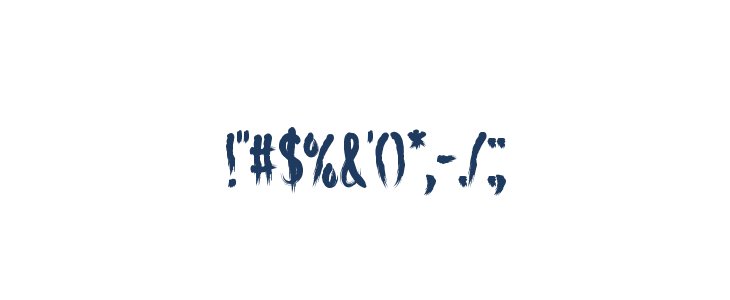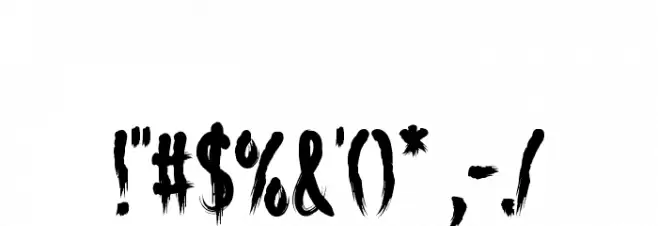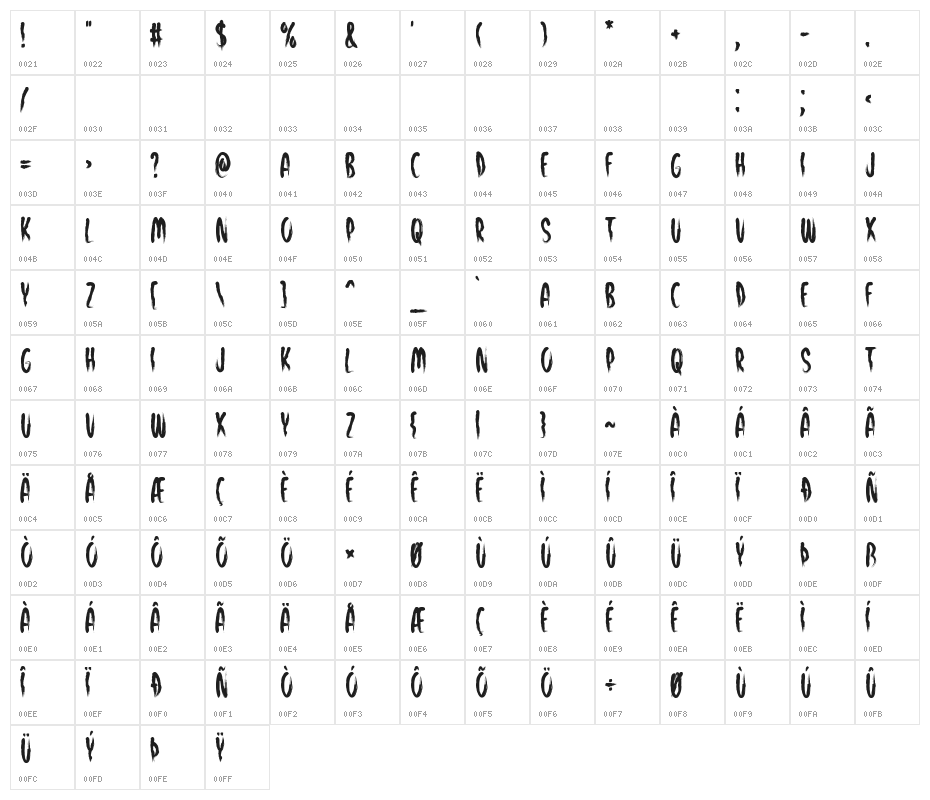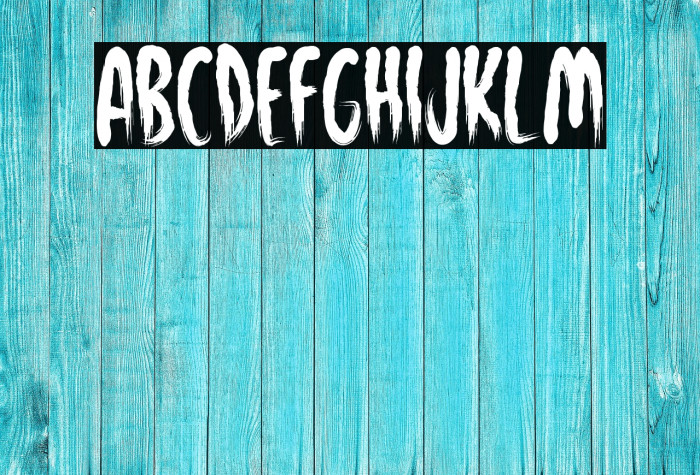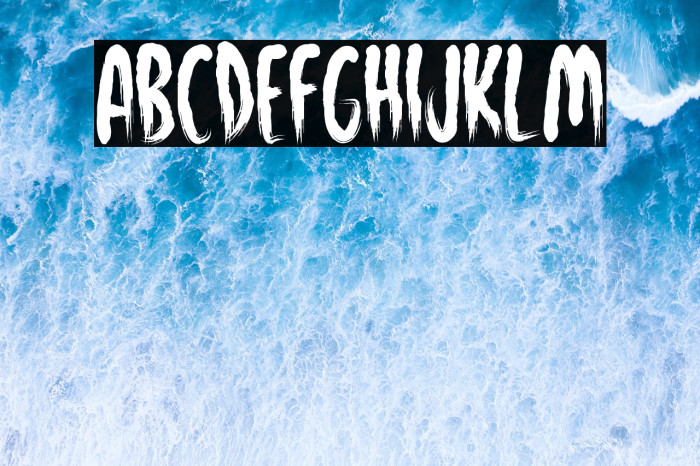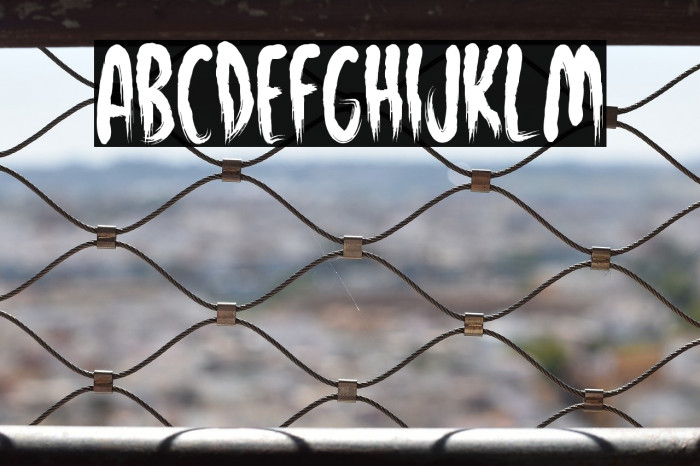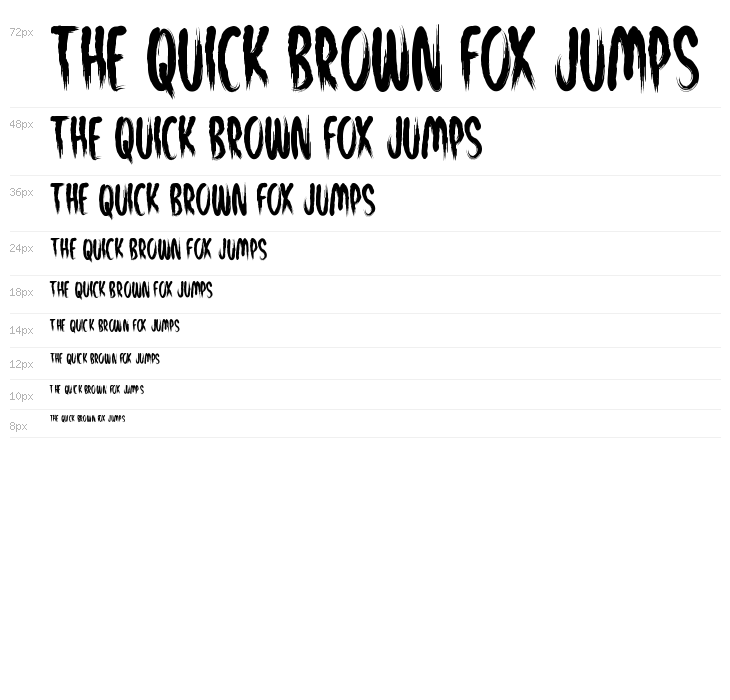
Fearful House Font
Fearful House Description
This font features a dramatic and eerie style, characterized by its jagged, dripping edges that evoke a sense of horror and suspense. The uppercase and lowercase letters share a consistent, bold appearance with elongated strokes that give the impression of something sinister and unsettling. The numerals and special characters maintain this theme, adding to the overall chilling aesthetic. The font's unique design makes it ideal for projects that require a spooky or Halloween-themed atmosphere, capturing attention with its striking and memorable appearance.